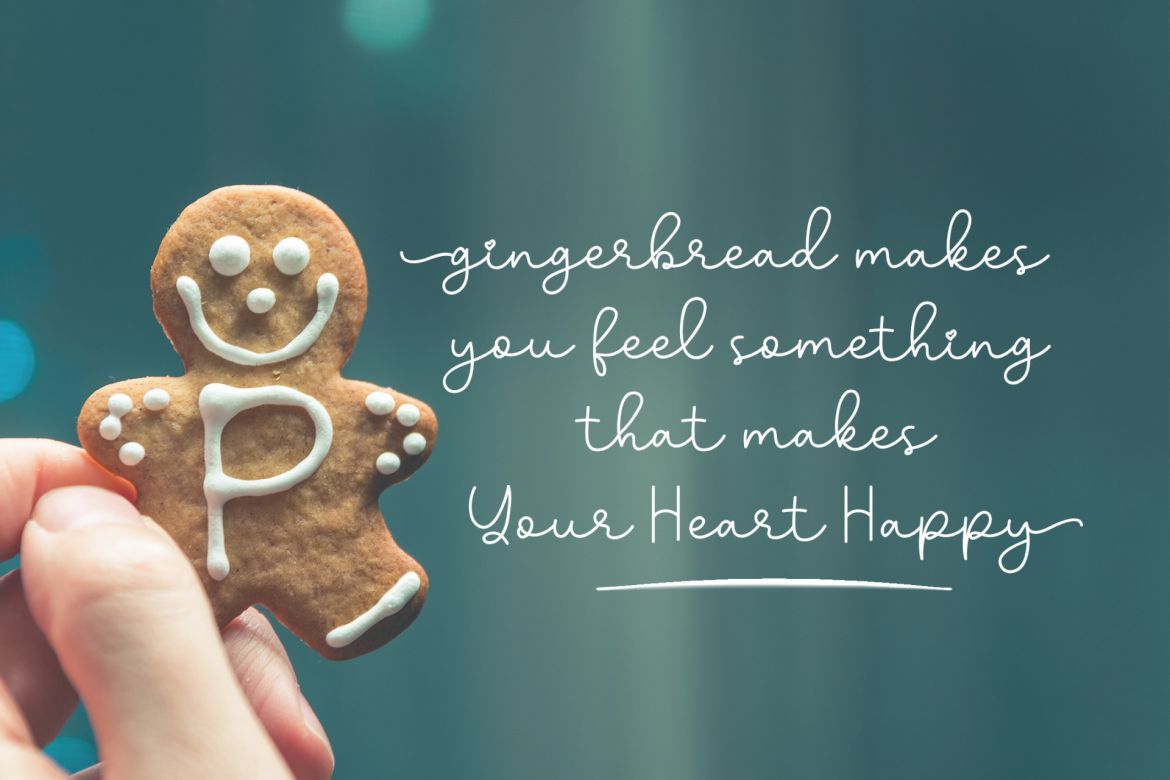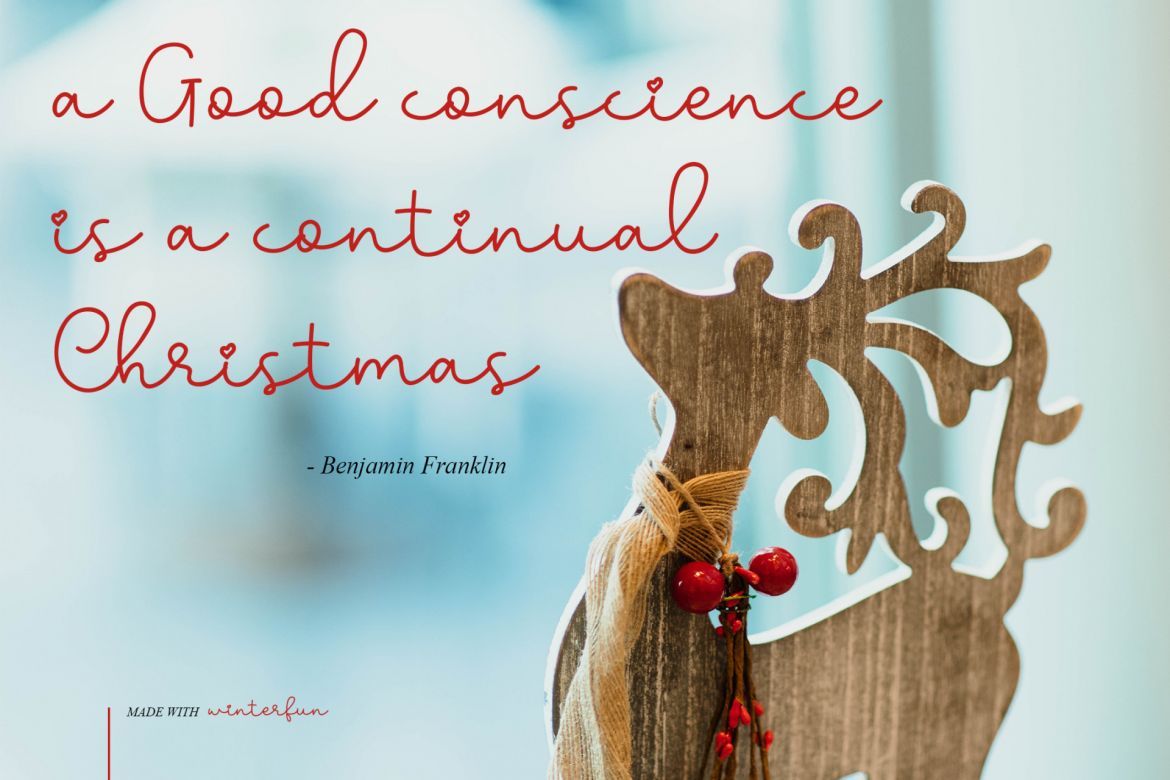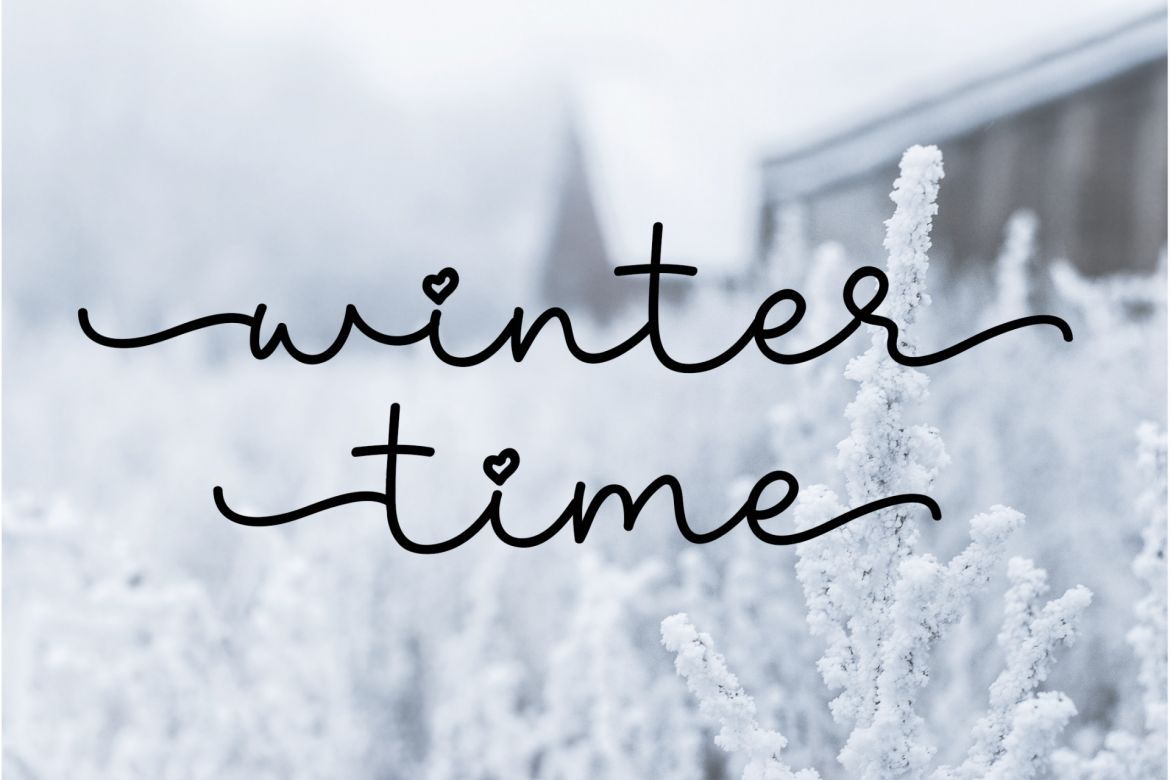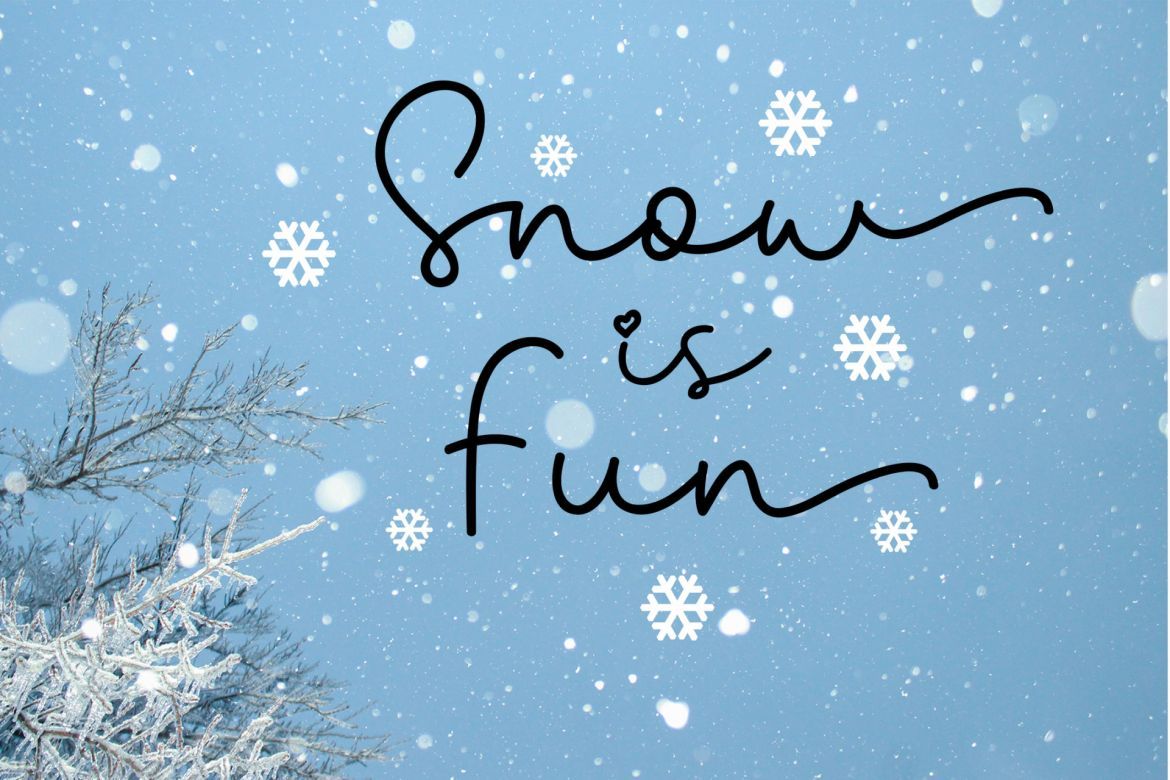
Winterfun Handwritten Font
Winterfun is a handwritten font.
This font is perfect for brand announcements, quotes, headings, blogs, logos, invitations and more!
• stylistic